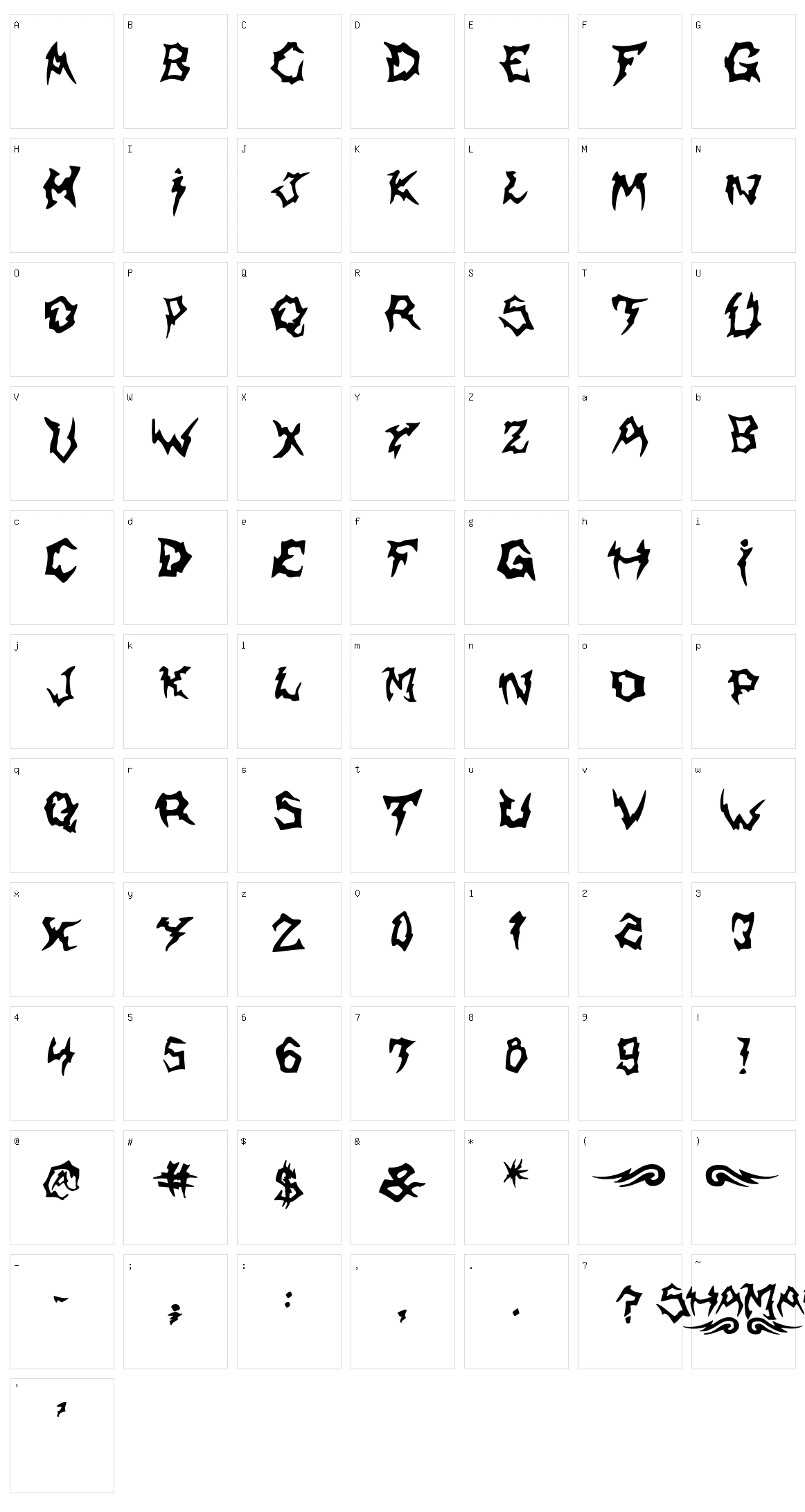
The free font Shaman is carefully designed by Gaut Fonts, showcasing a thoughtful balance of creativity and usability and belongs to the Gothic font family. When you download the ZIP file, it contains only 25.36 KB of font files, making it lightweight and quick to download. Please review the license details below to understand permitted usage and distribution rights. If license information is not available, we recommend using this font for personal projects only or contacting the author directly for commercial usage permissions.